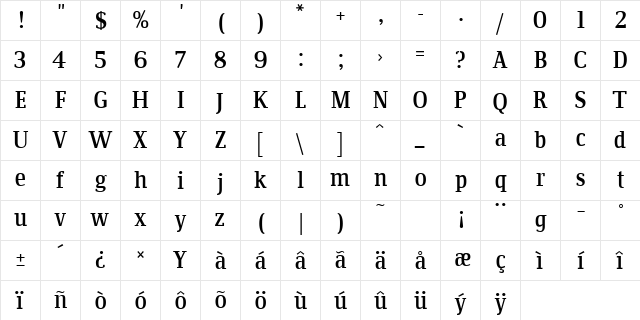
Communist Regular Free Font
Communist Regular
Design Context for Communist
Communist is a composed and adaptable typeface that performs quietly and consistently across a wide range of design contexts.